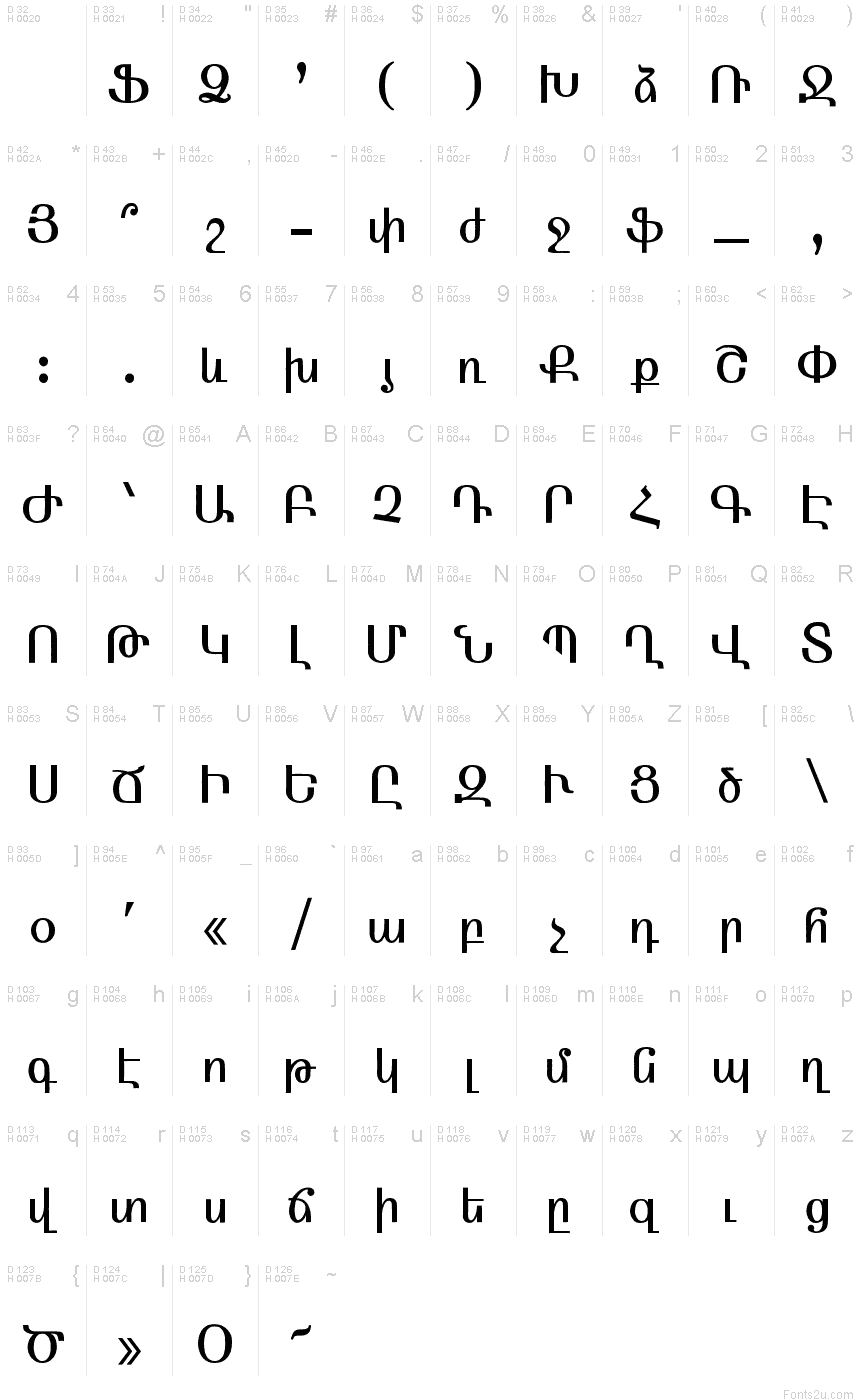
Armen TT is a free Armenian script-style display font marked by tall, upright forms, dramatic stroke changes, and alternating broad and narrow proportions. Hooked turns and low-slung curves recur throughout the lettering.
The font can connect cultural-event posters with restaurant branding, since its distinctive script reference suits both public programming and regional food identity without looking like ordinary Latin display type. Book covers, museum programs, and music packaging are equally convincing settings for Armenian history or contemporary culture, where these unusual letter shapes can establish the subject directly and become part of the graphic imagery rather than acting as neutral decoration.